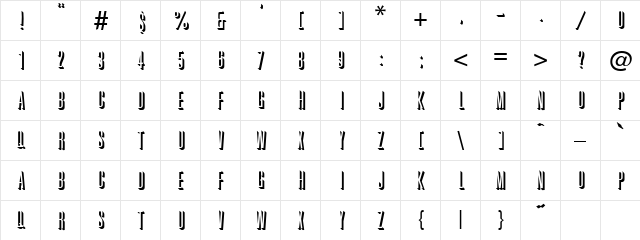
Narrow Shadow 1 Shadow
Design Context for Narrow Shadow 1 Typeface
Narrow Shadow 1 is built around its visual character rather than neutral utility — its distinctive forms are designed to make an impression at display sizes.
Font Pairing: Pair with a clean neutral sans-serif for body copy to let Narrow Shadow 1's character lead without overwhelming the composition.
Pro Tip: Use Narrow Shadow 1 exclusively at display sizes — it was designed to be seen, not read at length. Let a neutral companion handle body copy.